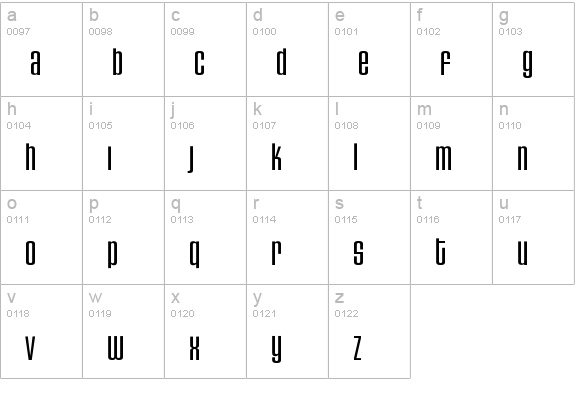
HouseGothicHG23Cond LIGHT2 is a refined, elegant variant in the HouseGothicHG23Cond typeface family \xE2\x80\x94 well suited to elegant body text, refined sub-headings, and luxury branding.
HouseGothicHG23Cond LIGHT2 font is a sleek and modern typeface that exudes sophistication and elegance. Its clean lines and sharp angles make it perfect for a wide range of design projects, from branding to editorial design. This font strikes the perfect balance between a classic Gothic style and a contemporary aesthetic, making it a versatile choice for both print and digital applications. Best of all, HouseGothicHG23Cond LIGHT2 font is available for free download at FontsMarket.com. This means you can easily access this high-quality typeface without any cost, making it a valuable addition to your font library. Whether you're a professional designer or a hobbyist looking to elevate your projects, this font is sure to impress with its unique style and versatility. Download HouseGothicHG23Cond LIGHT2 font today and take your designs to the next level!